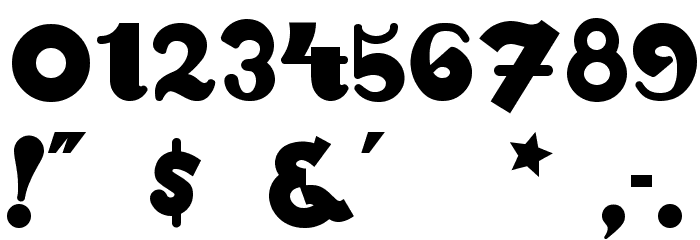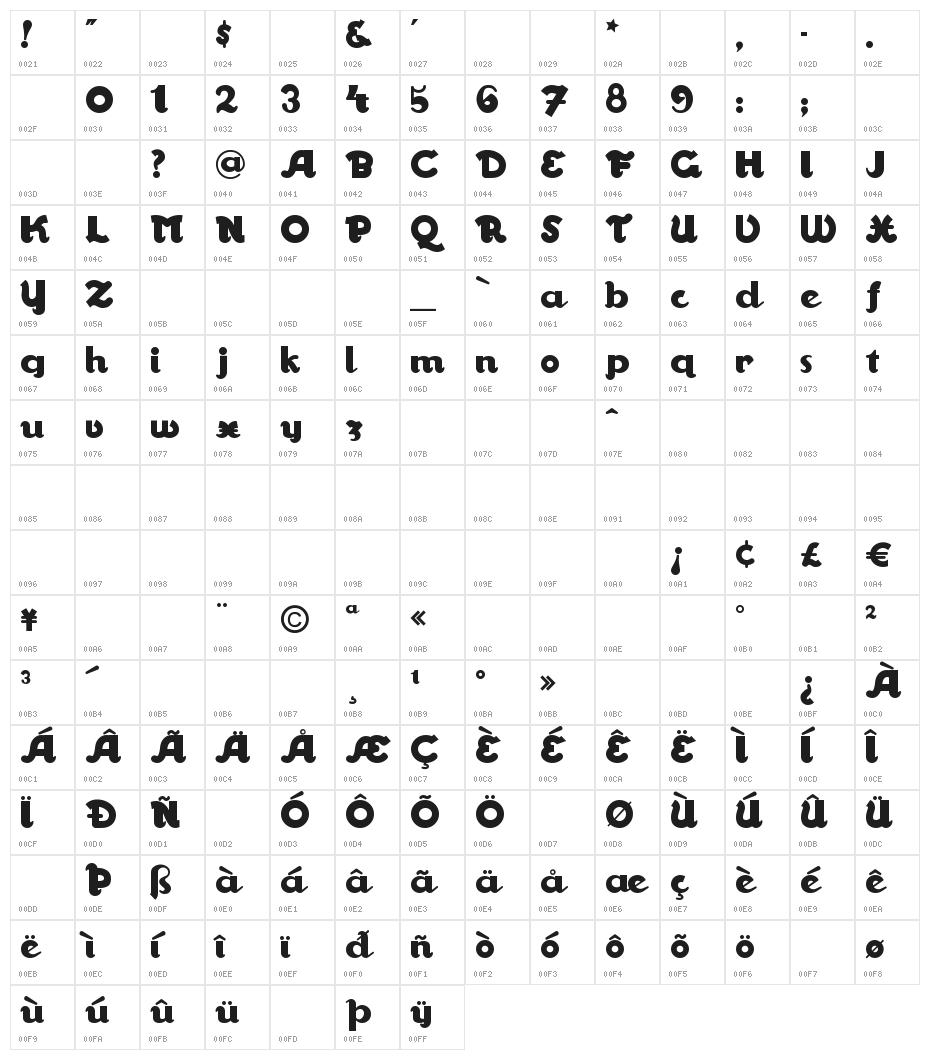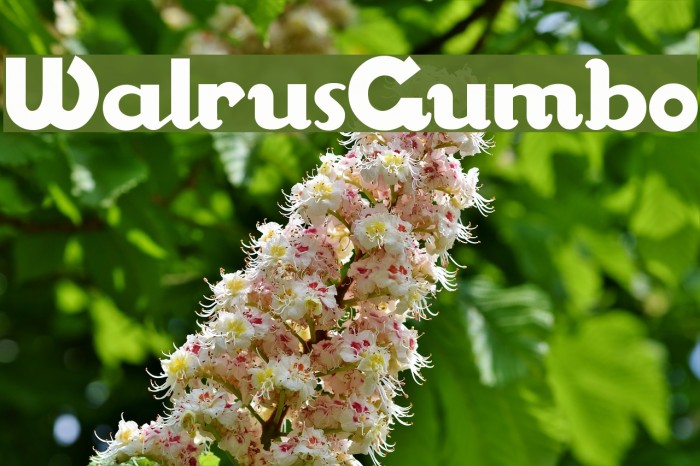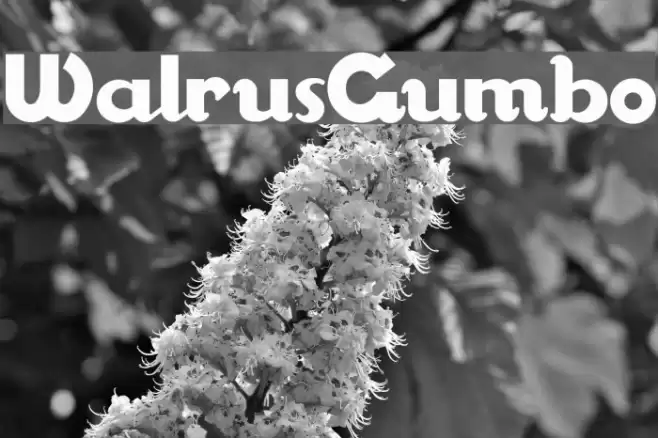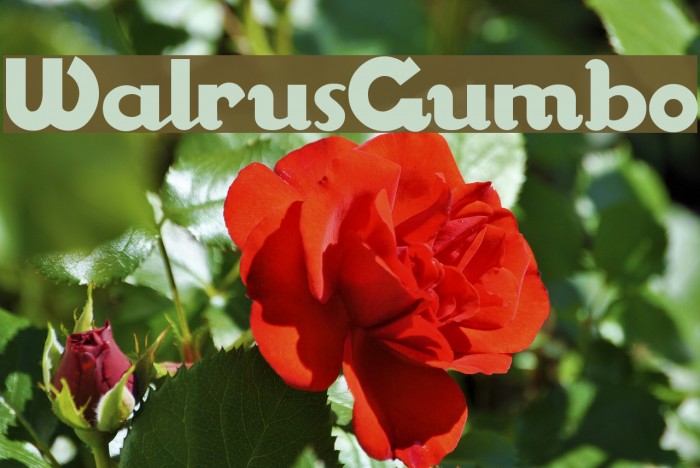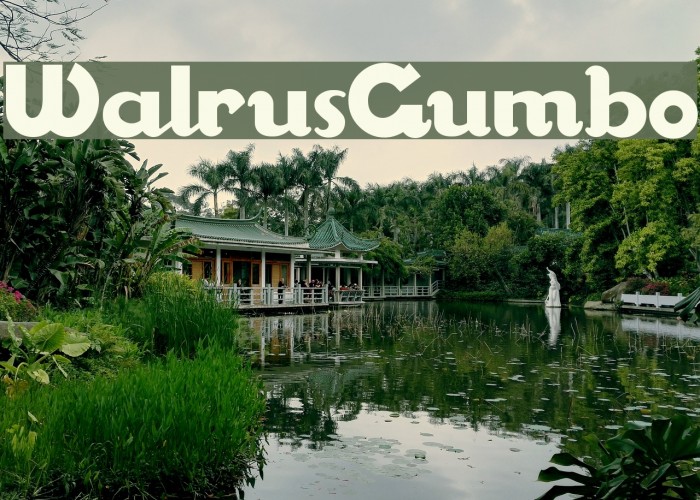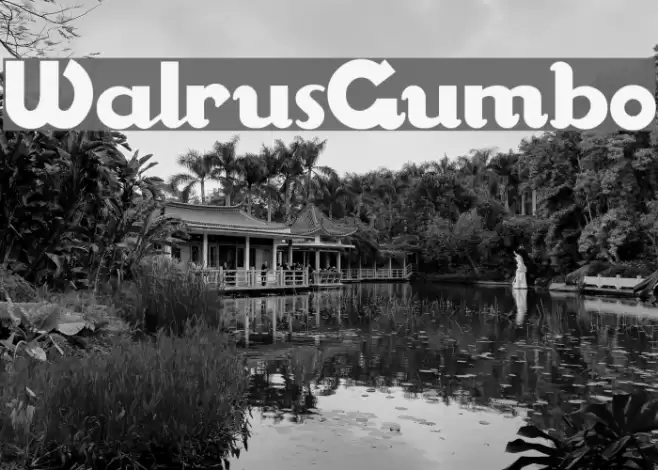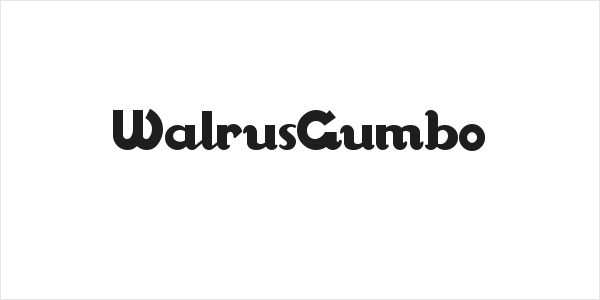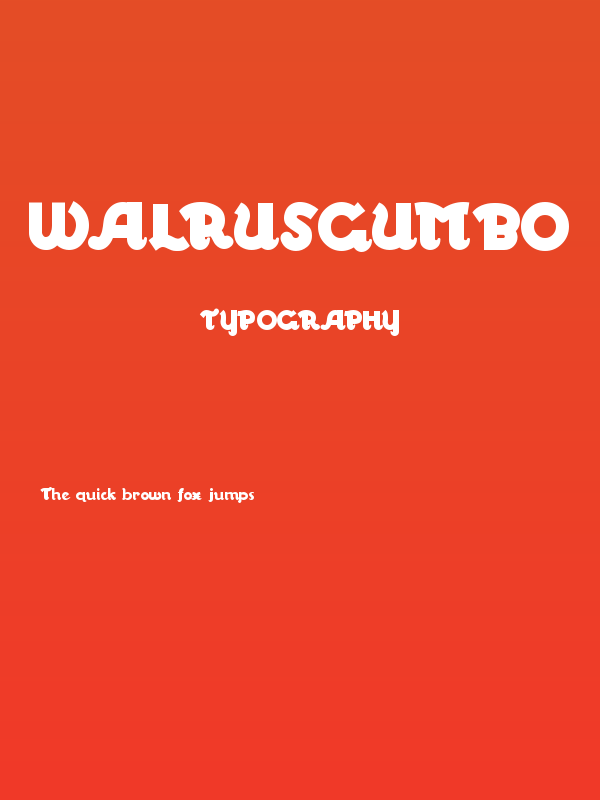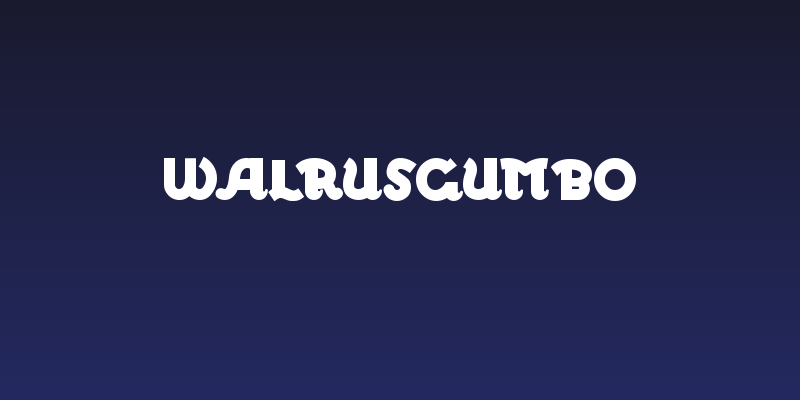
WalrusGumbo Font
WalrusGumbo Description
This font features a bold and playful design, characterized by its thick, rounded strokes and whimsical curves. The letters have a unique, almost cartoonish quality, with exaggerated serifs and a sense of movement that adds a lively touch to the text. The numbers and special characters maintain this playful aesthetic, making it suitable for creative and informal applications. The overall appearance is both eye-catching and approachable, making it ideal for projects that require a fun and engaging typeface.